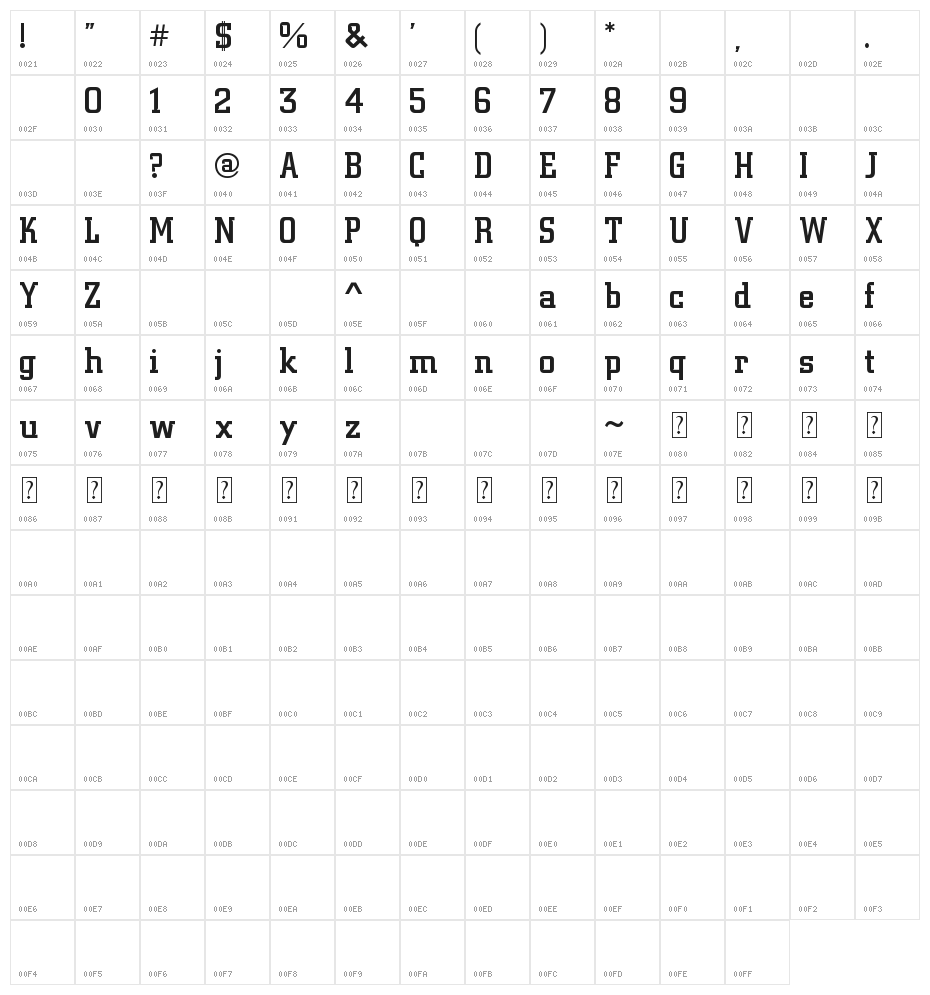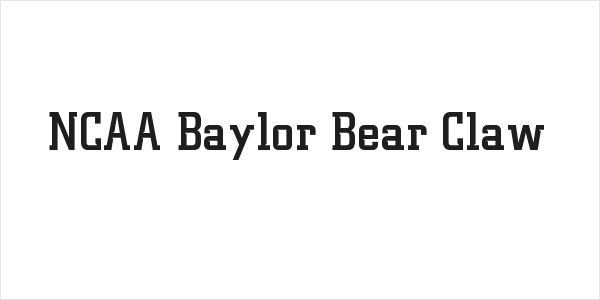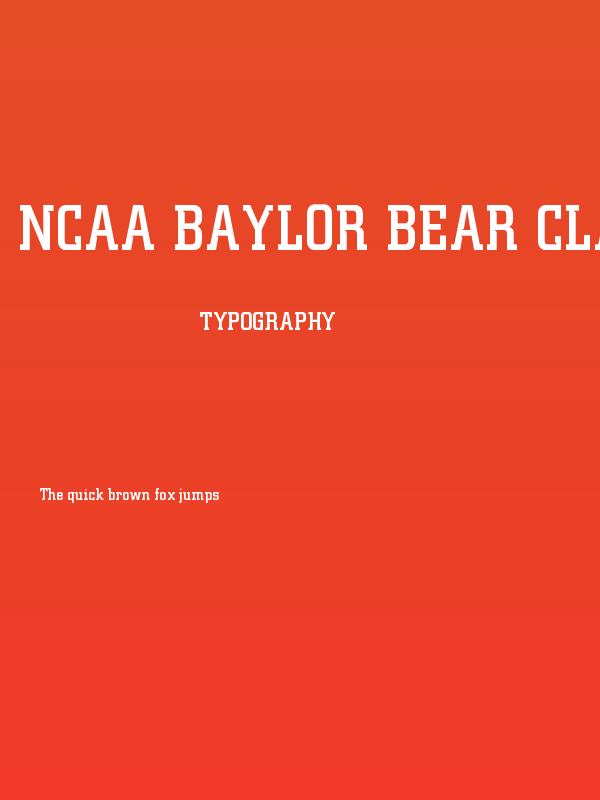
NCAA Baylor Bear Claw Font
NCAA Baylor Bear Claw Description
This font presents a bold and assertive style, characterized by its strong, block-like serifs and uniform stroke widths. The uppercase letters are tall and commanding, while the lowercase letters maintain a consistent height, offering a balanced appearance. The numerals are distinct and easily readable, making them suitable for various applications. Special characters are designed with the same boldness, ensuring they stand out. The overall design is modern yet retains a classic touch, making it versatile for both contemporary and traditional projects.
| Proposed Projects | Ideal for sports branding, posters, headlines, and any project requiring a strong, impactful typeface. |